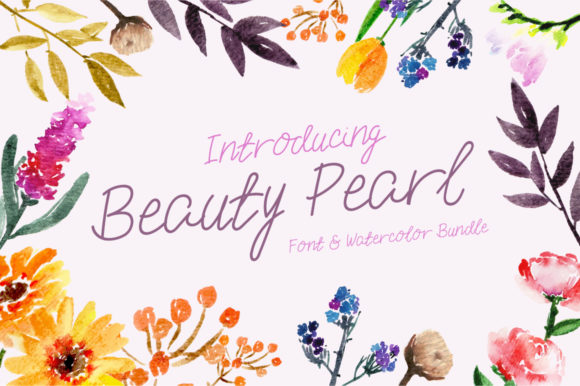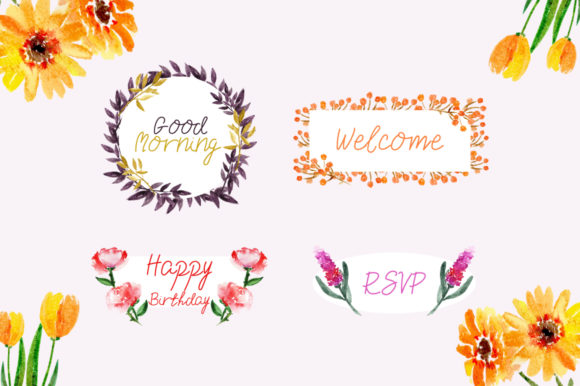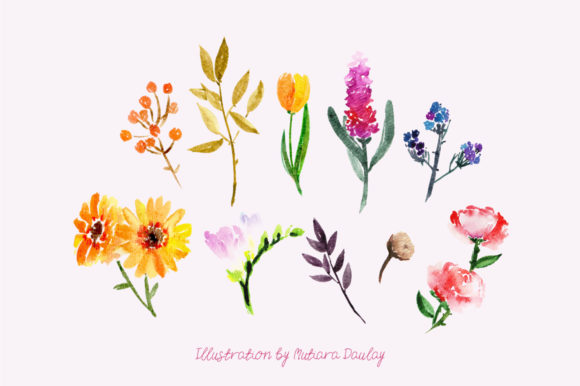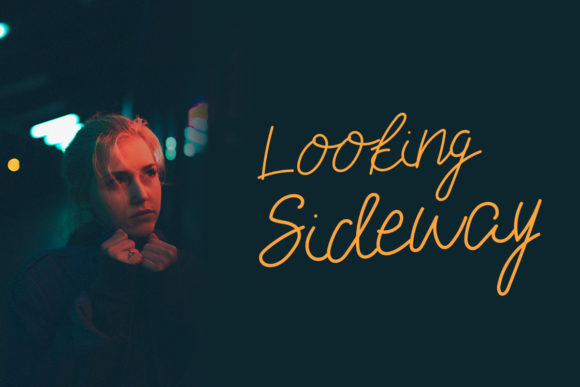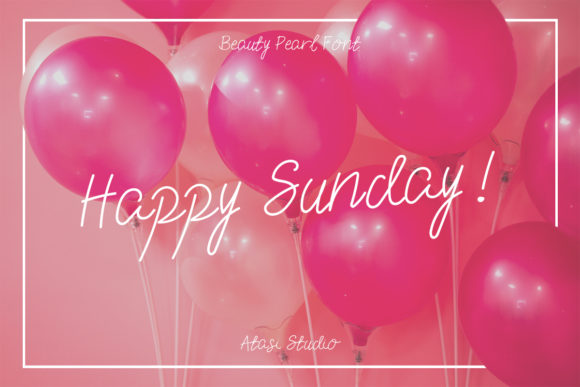
Beauty Pearl Font
About Beauty Pearl Font
The Beauty Pearl is a modern signature font with a luxurious impression. Included as a bonus are beautiful watercolor illustrations.